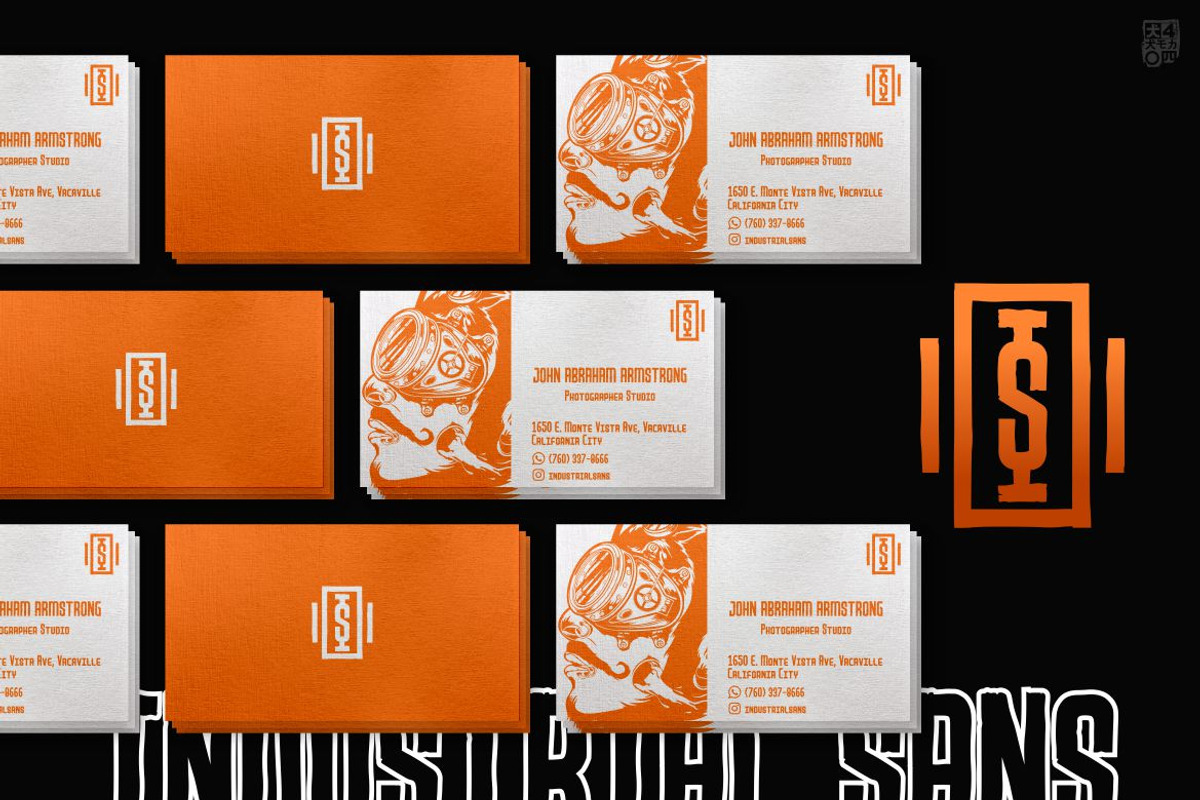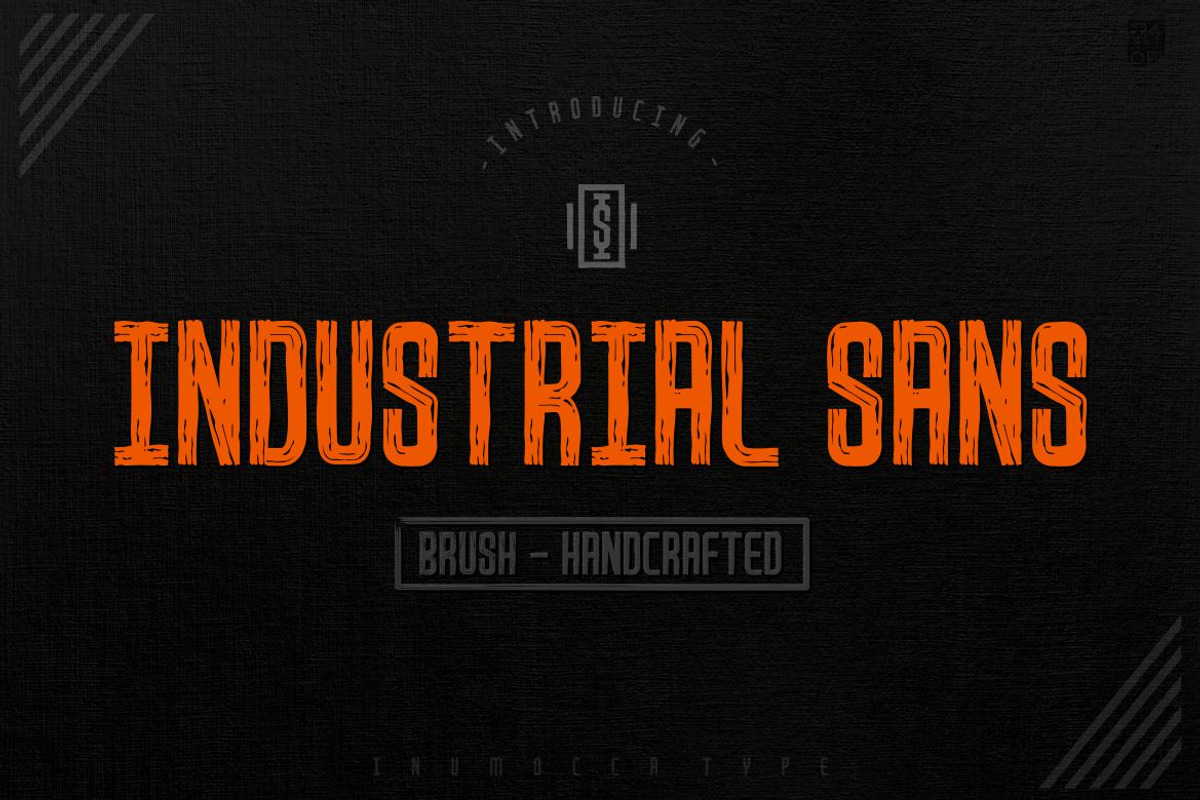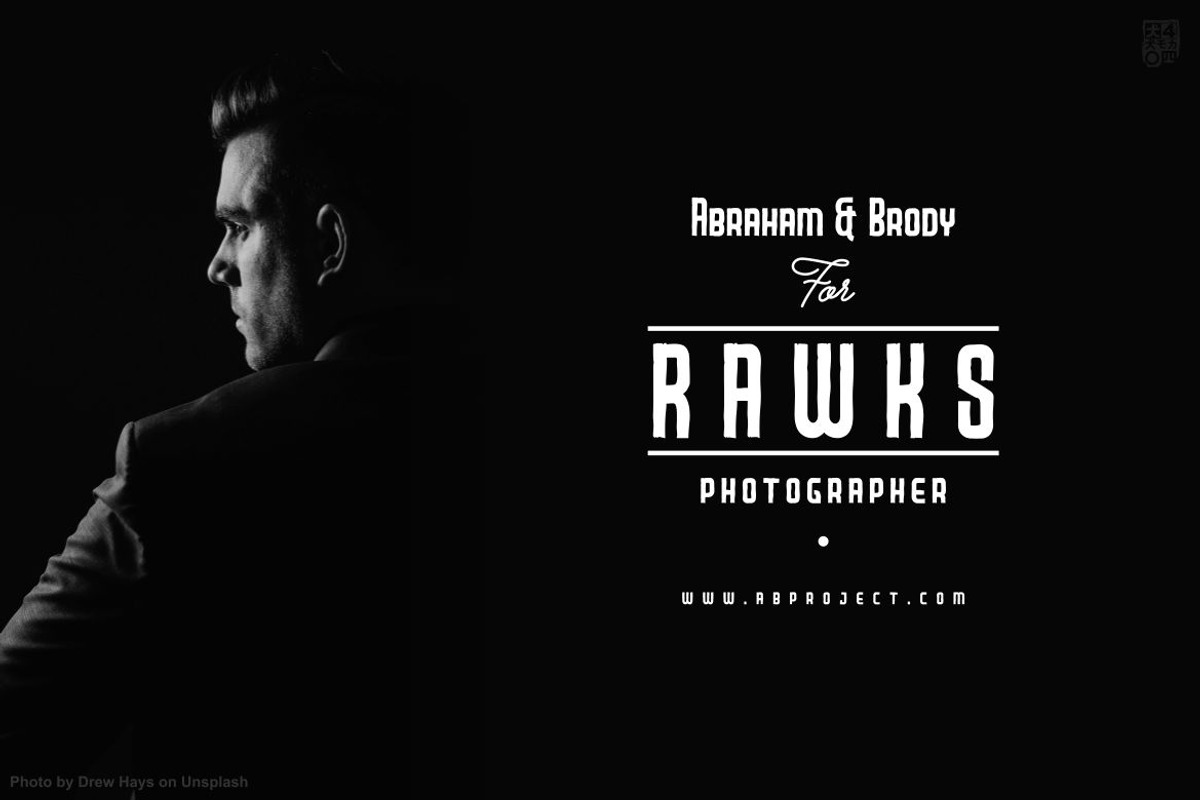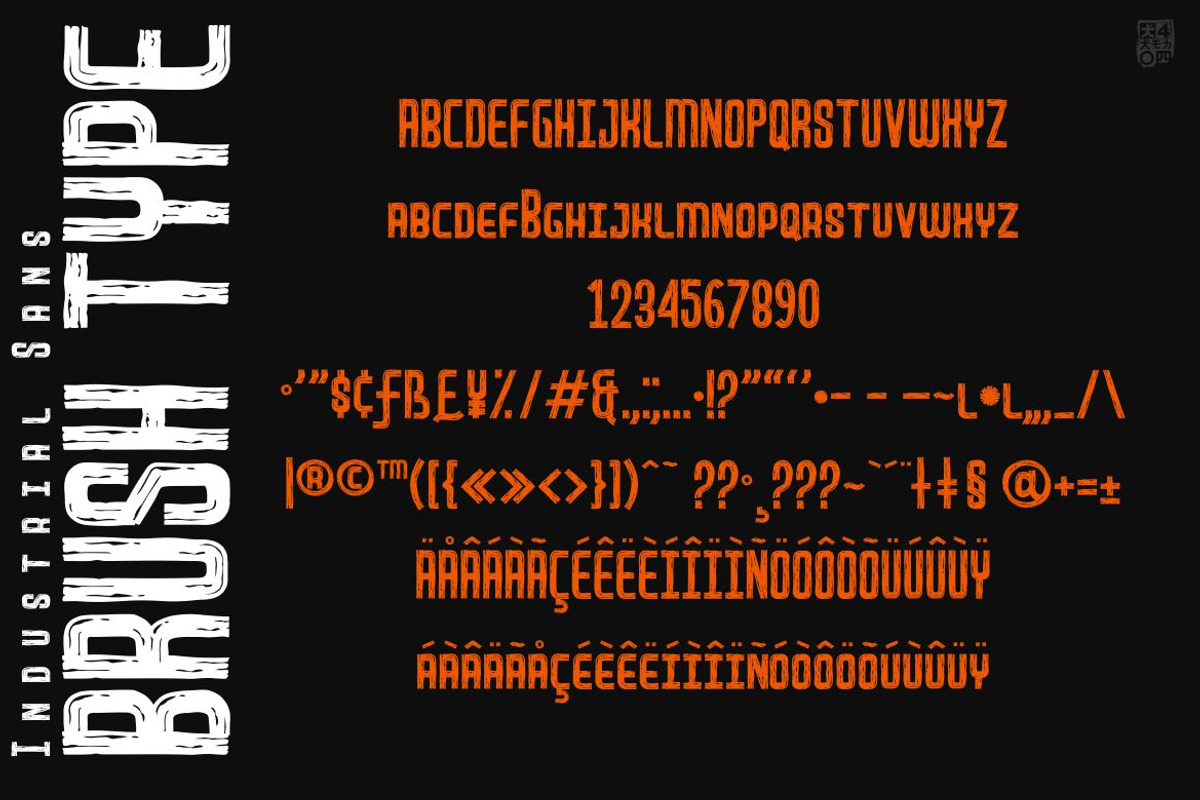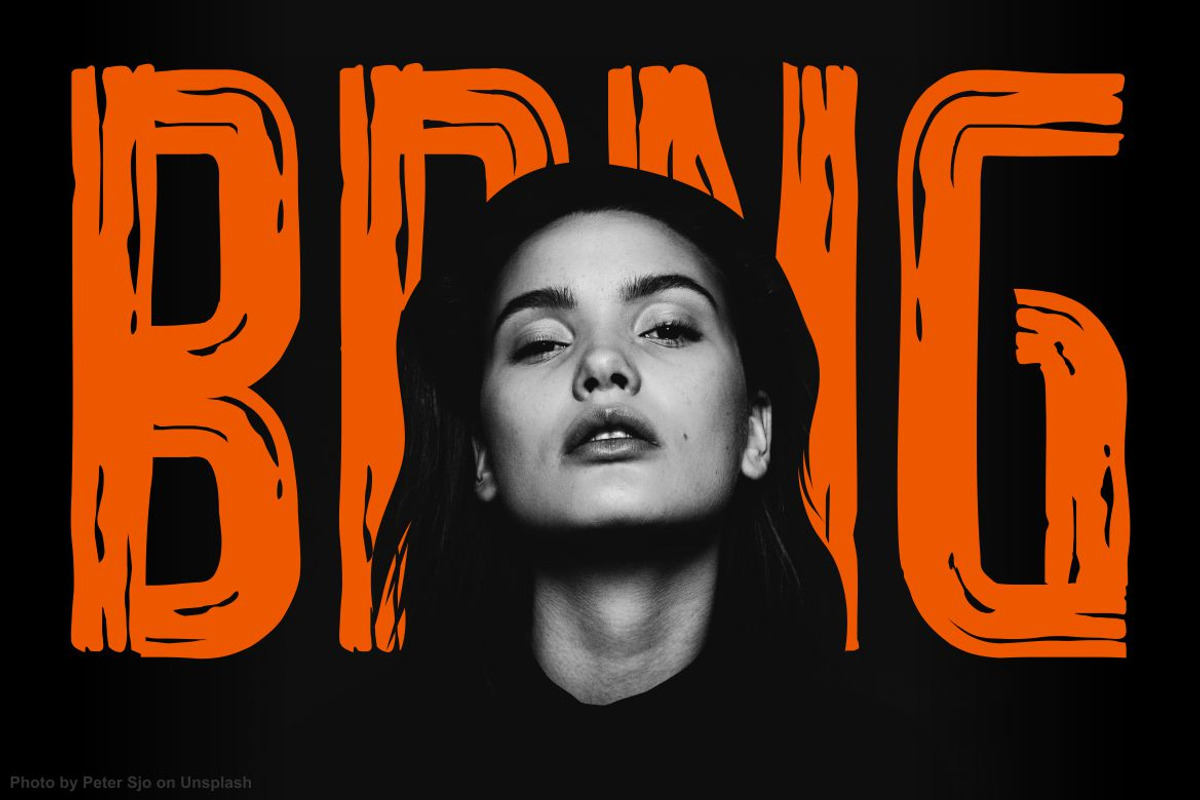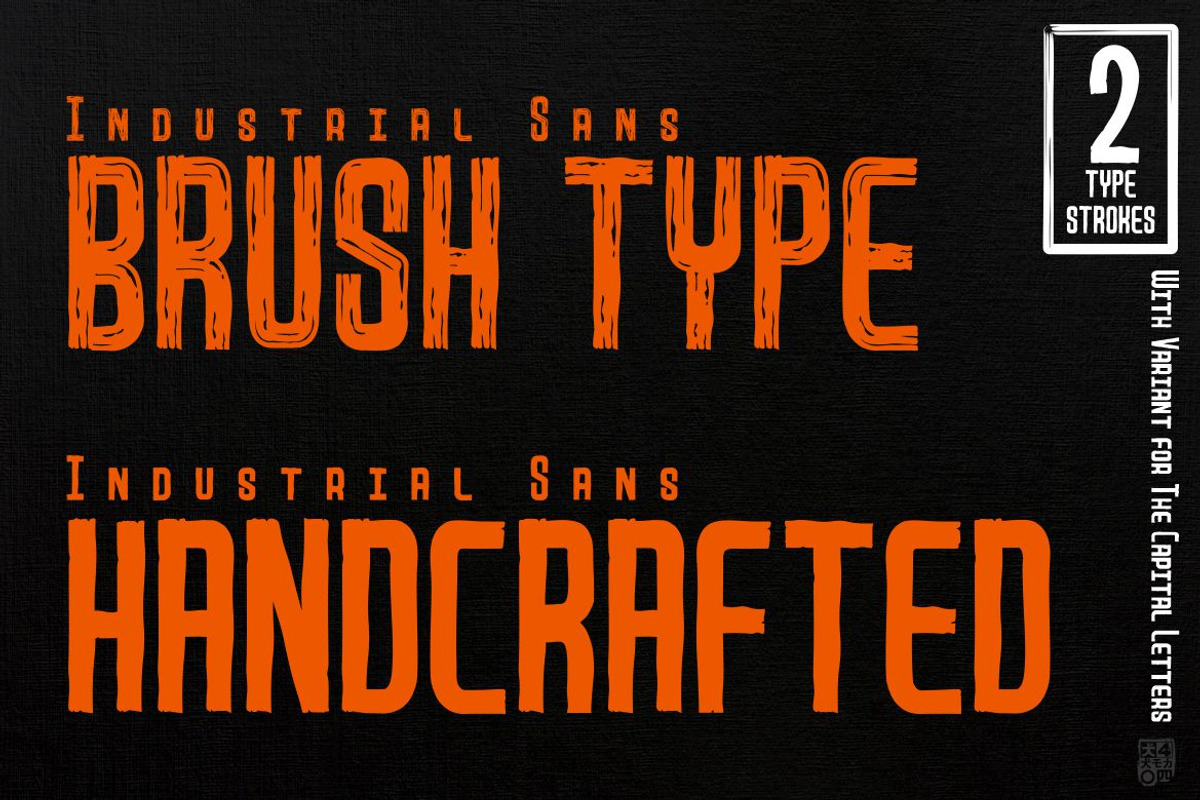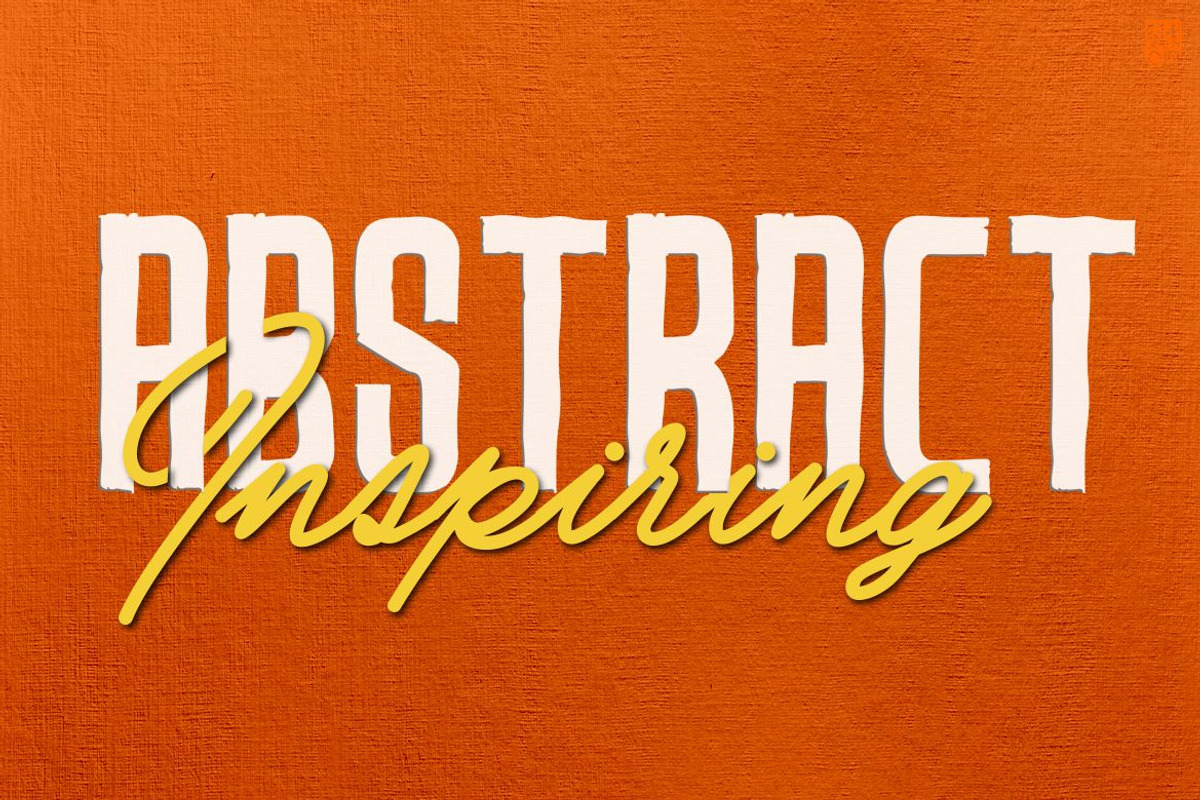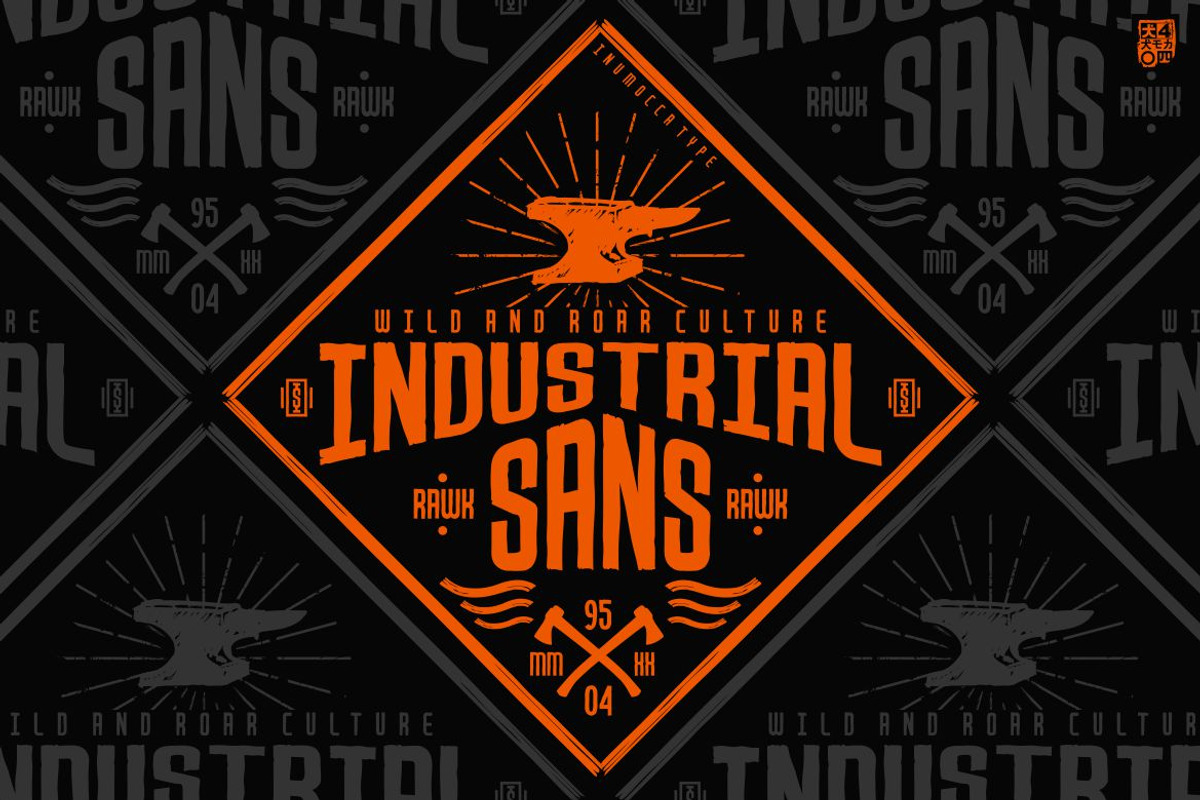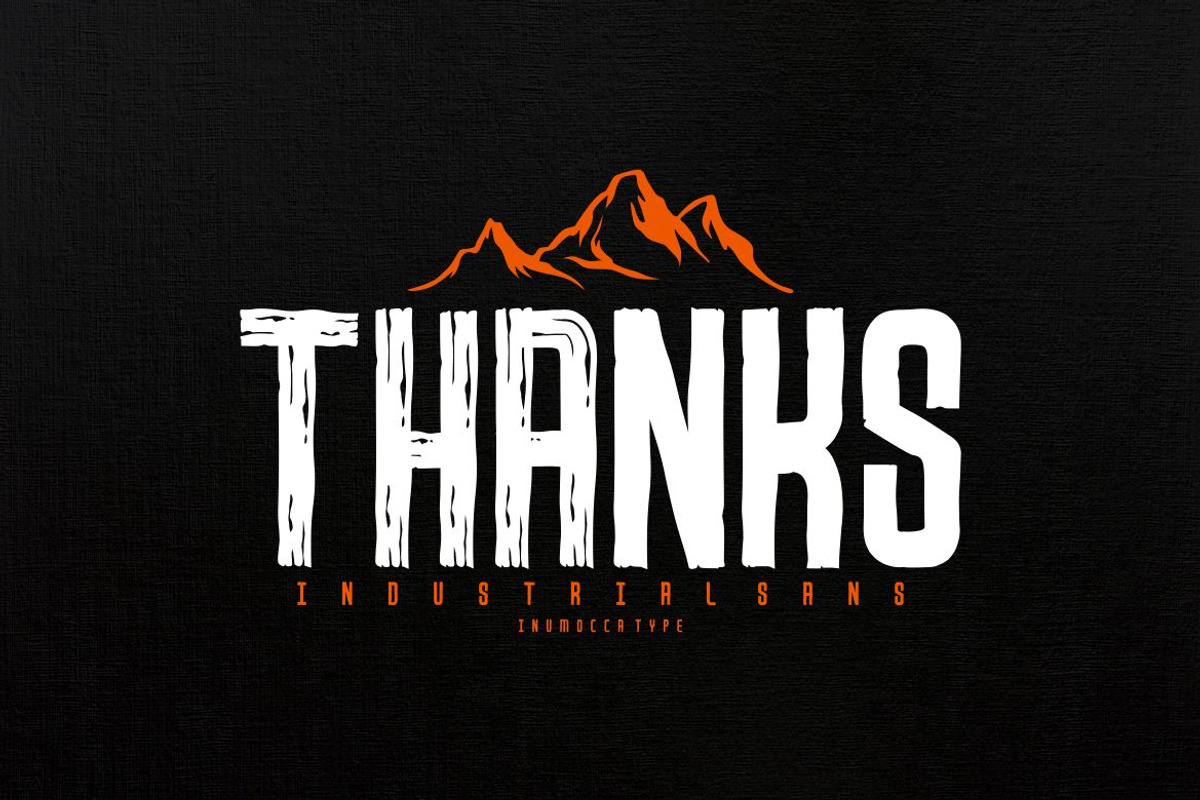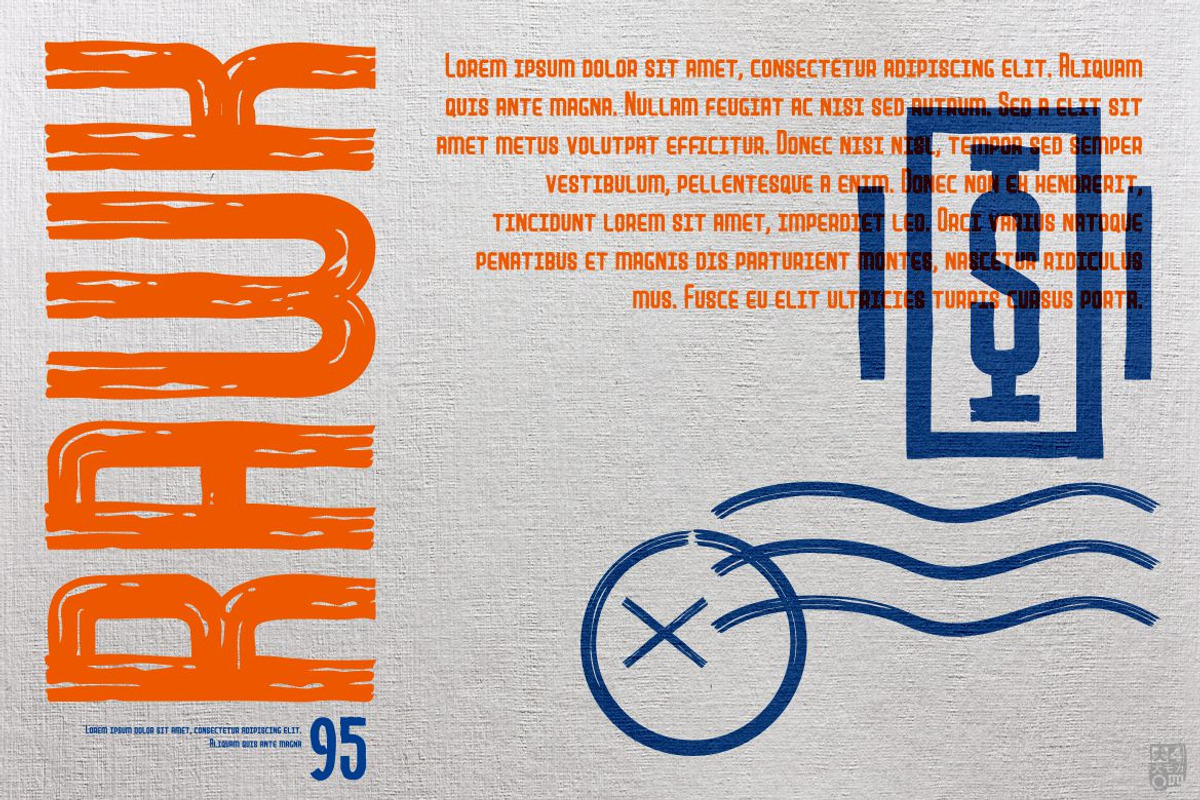
Industrial Sans
INDUSTRIAL SANS
Industrial Sans, Modern Sans Serif font. Brush and Handcrafted effect, With Variant for the Capital Letters. unique, eye catching and have a hand lettering character. for design needs like Poster, flyer, tshirt, logos, badges, and more your project design.
- Unique glyphs
- Multilingual Characters
- UPPERCASE
- Numeric
- Symbol
- Punctuation Character